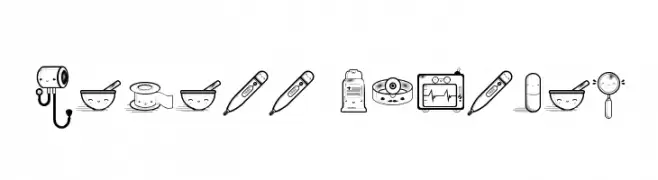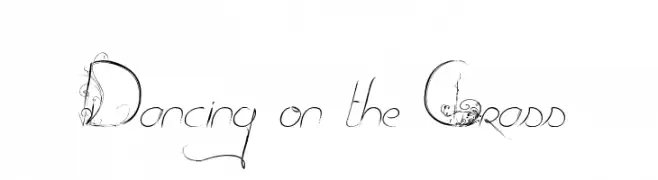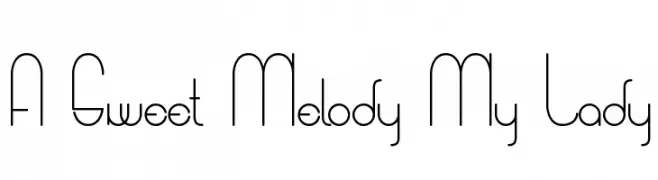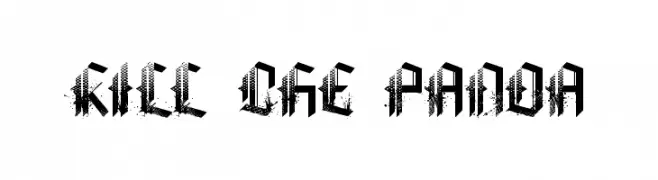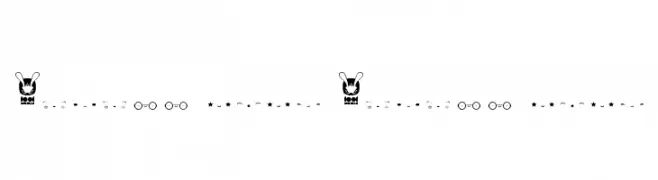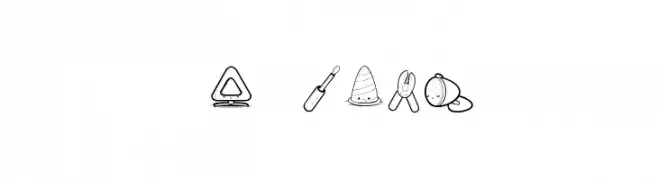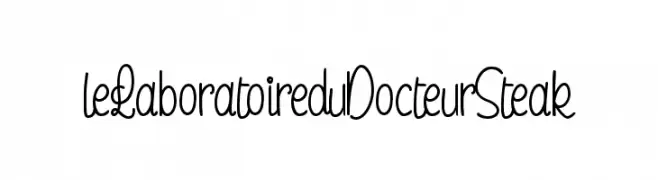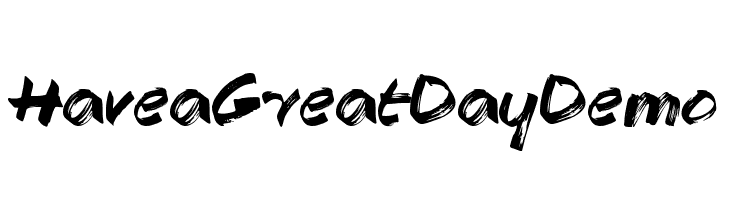
Decorative font with kawaii kokeshi doll illustrations for each character.
A playful decorative font with kawaii-style medical illustrations.
An elegant, whimsical font with vine-like embellishments and flowing lines.
A sleek, modern font with elongated, thin strokes and a sophisticated style.
An elegant script font with flowing, cursive style and intricate swashes.
A bold, angular gothic font with a fragmented, textured appearance.
A decorative font with playful, expressive eye designs inspired by kawaii culture.
A dynamic and elegant script font with flowing, cursive letterforms.
Hand-drawn dingbat font with toy car-themed illustrations.
A playful, handwritten font with elongated, whimsical characters.